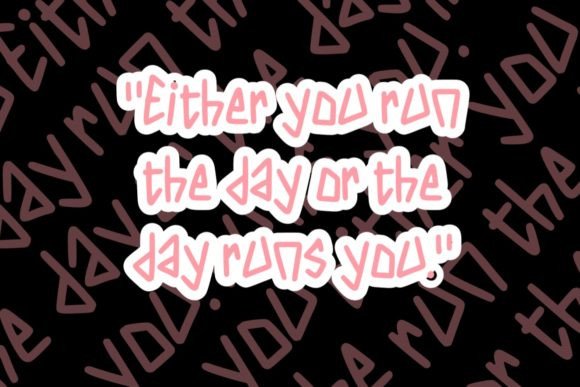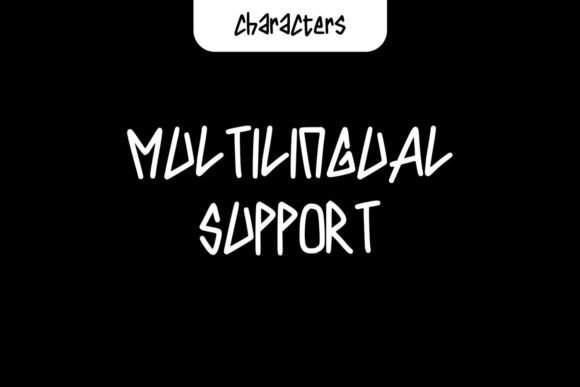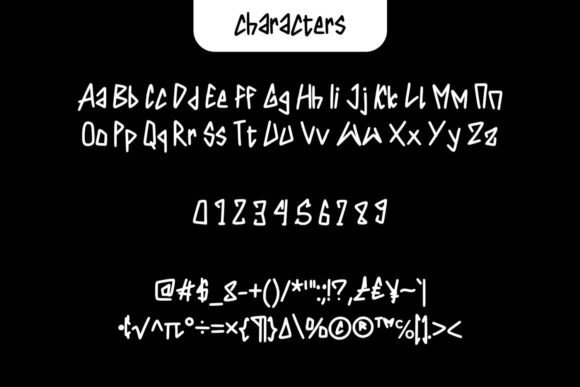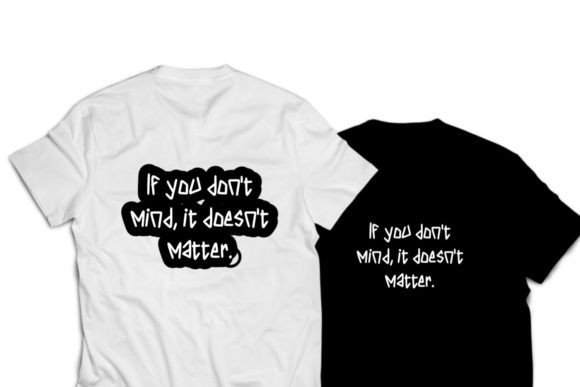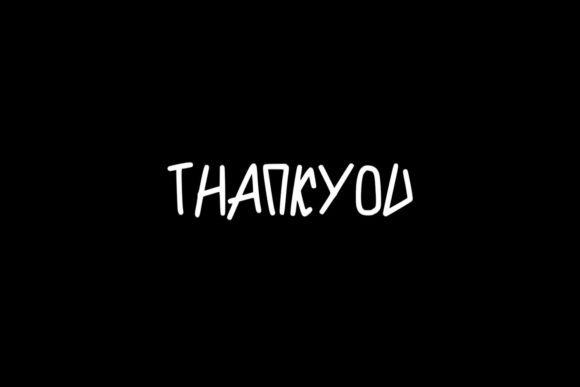
Unlock the Power of Typography with Acrilic Sans Font
Are you ready to elevate your designs to new heights and leave a lasting impression on your audience? Look no further than Acrilic Sans, a revolutionary font that embodies the perfect blend of energy, flair, and versatility. In this article, we’ll dive into the world of Acrilic Sans, exploring its unique features, benefits, and applications that make it an ideal choice for designers and crafters worldwide.
The Artistry of Acrilic Sans
Acrilic Sans is more than just a font – it’s an experience. Its dynamic artistry is designed to captivate your audience and transport them to a realm of aesthetic delight and fulfillment. With its bold, modern design, Acrilic Sans injects a shot of energy into any project, making it perfect for designers looking to create stunning visuals that stand out from the crowd.
Universal Appeal
One of the most significant advantages of Acrilic Sans is its universal appeal. This font transcends linguistic and cultural boundaries, making it an excellent choice for global brands and designers who want to communicate their message to a diverse audience. Whether you’re creating a website, brochure, or social media campaign, Acrilic Sans ensures that your message is conveyed with clarity and style, regardless of the language or region.
Multilingual Support
Acrilic Sans takes versatility to the next level with its superior multilingual support. This font is designed to effortlessly adapt to different languages, making it easy to incorporate into various linguistic contexts. With Acrilic Sans, you can create stunning designs that cater to a global audience, without worrying about the complexities of font compatibility.
Acrilic Sans offers incredible flexibility, making it suitable for a wide range of design applications. From branding and advertising to packaging and digital media, this font can be used to create breathtaking designs that capture the essence of your message. Whether you’re a seasoned designer or a crafty DIY enthusiast, Acrilic Sans provides the perfect foundation for your creative projects.
Key Features of Acrilic Sans
- Dynamic Artistry: Experience the energy and flair of Acrilic Sans, designed to captivate your audience and elevate your designs.
- Universal Appeal: Transcend linguistic and cultural boundaries with a font that communicates your message with clarity and style.
- Multilingual Support: Effortlessly adapt to different languages and create stunning designs that cater to a global audience.
- Incredible Versatility: Suitable for a wide range of design applications, from branding and advertising to packaging and digital media.
Tips for Using Acrilic Sans
To get the most out of Acrilic Sans, here are some expert tips:
- Experiment with Font Sizes: Acrilic Sans looks stunning in various font sizes, so don’t be afraid to experiment and find the perfect fit for your design.
- Play with Colors: This font looks great in bold, bright colors, so try pairing it with contrasting hues to create visual interest.
- Mix and Match: Combine Acrilic Sans with other fonts to create a unique typography style that reflects your brand’s personality.
Acrilic Sans is more than just a font – it’s a design experience. With its dynamic artistry, universal appeal, and multilingual support, this font is poised to revolutionize the world of typography. Whether you’re a designer, crafty DIY enthusiast, or simply someone who appreciates the art of typography, Acrilic Sans is an excellent choice for anyone looking to elevate their designs and leave a lasting impression on their audience.